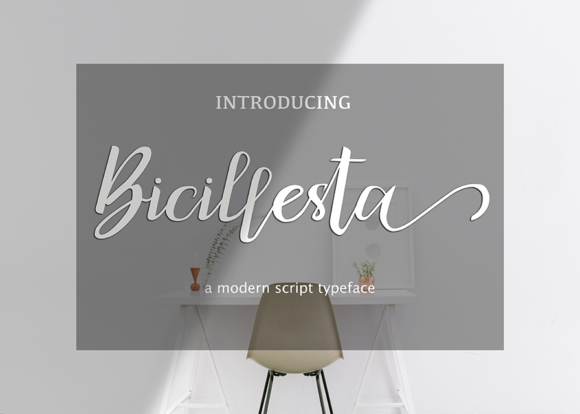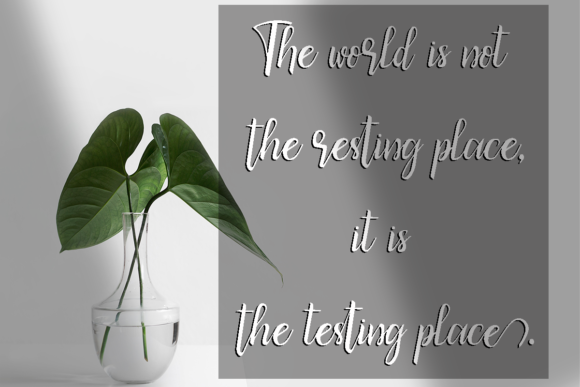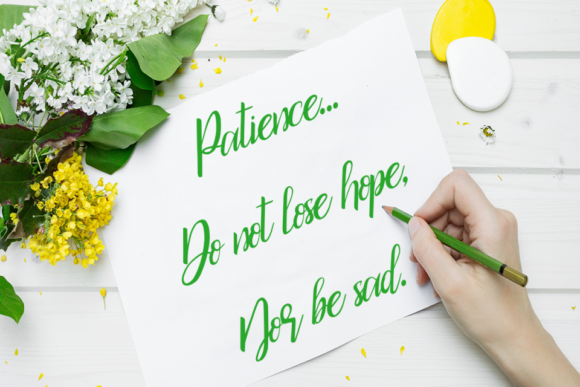
Bicillesta Font
About Bicillesta Font
Bicillesta is a fresh and modern script font that’s both elegant and authentic. Fall in love with its unique charm!